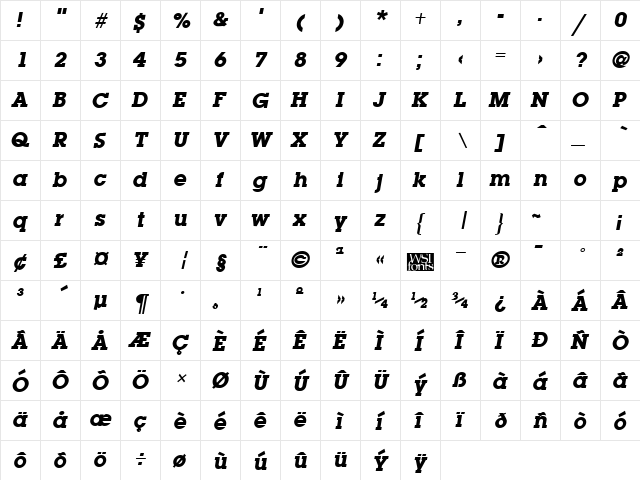
LaplandExtrabold Italic Font Preview
Design Context for LaplandExtrabold Typeface
LaplandExtrabold takes a measured approach to typography — its balanced proportions and neutral character make it a reliable workhorse for both digital and print work. The dynamic lean of this cut emphasises speed and emphasis in any layout. The heavy weight commands attention and anchors typographic hierarchies.
Pro Tip: Use LaplandExtrabold for emphasis, pull quotes, and subheadings where its slanted energy can add rhythm to the layout.